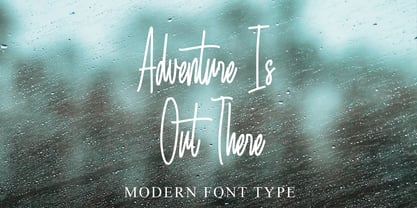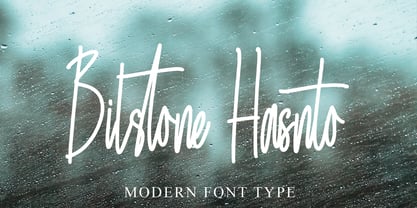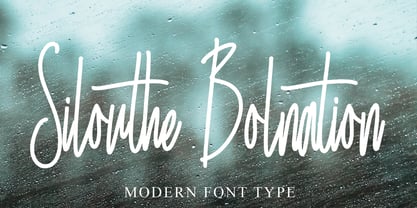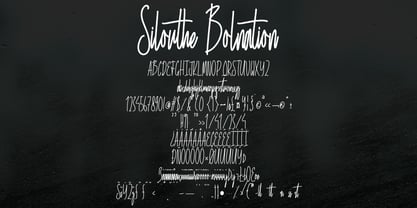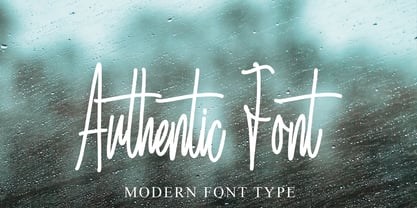
Silouthe Bolnation
by Ayska
The Silouthe Bolnation Font Family was designed by Dhoni Trihatmoko and published by Ayska. Silouthe Bolnation contains 1 styles.
Immerse yourself in the captivating charm of Silouthe Bolnation, a meticulously engineered font that fuses the elegance of contemporary design with the warm appeal of handmade craftsmanship. Each curve of this font is gracefully arched and expertly detailed, projecting a future-focused refinement and irresistible charm that breathes life into your creative undertakings.
Silouthe Bolnation is not just a font; it’s a precious jewel that mesmerizes your blog audience, infuses individuality into your digital periodical, heightens your celebratory invites, and gives voice to your bespoke cards. Drawing from the homely charm of scrapbooking and sleek modern décor aesthetics, Silouthe Bolnation is a paragon of versatility. The influence of this typeface is deeply etched on every digital canvas it graces, instilling an eclectic artistic spirit.
Both a nod to tradition and an ignition for your creativity, Silouthe Bolnation lays the groundwork for eye-catching, memorable art. Unleash the flexible power of Silouthe Bolnation and watch as your artistic visions come to life, taking shape as unique and standout works of art.
Designers: Dhoni Trihatmoko
Publisher: Ayska
Foundry: Ayska
Design Owner: Ayska